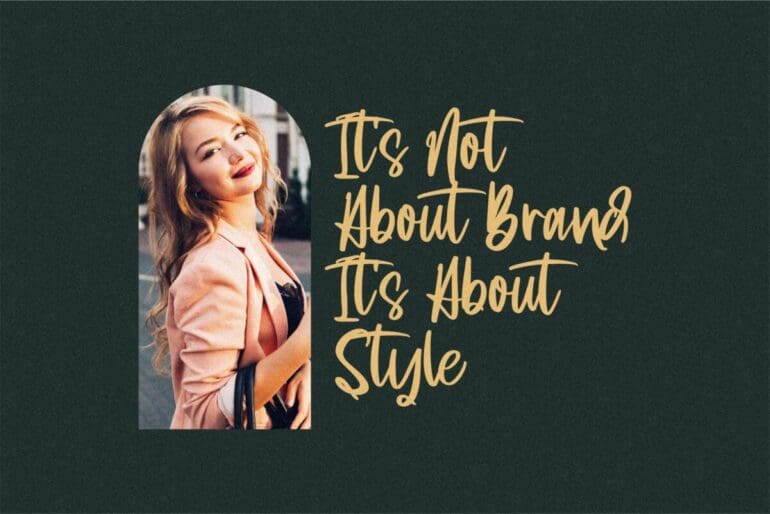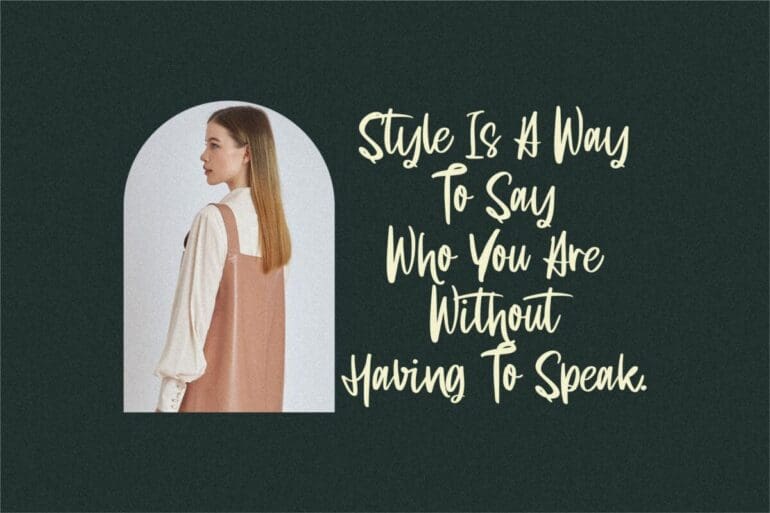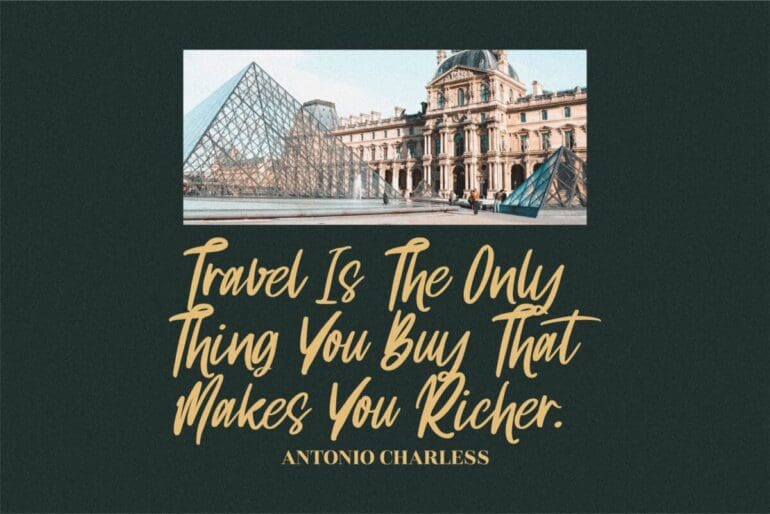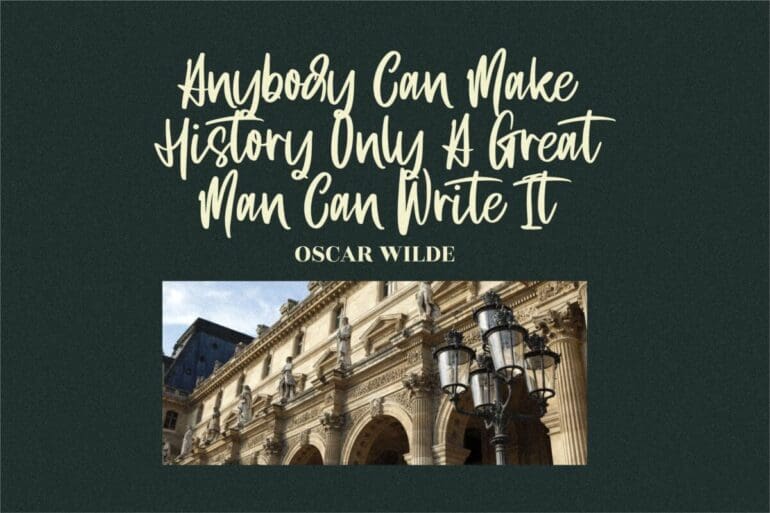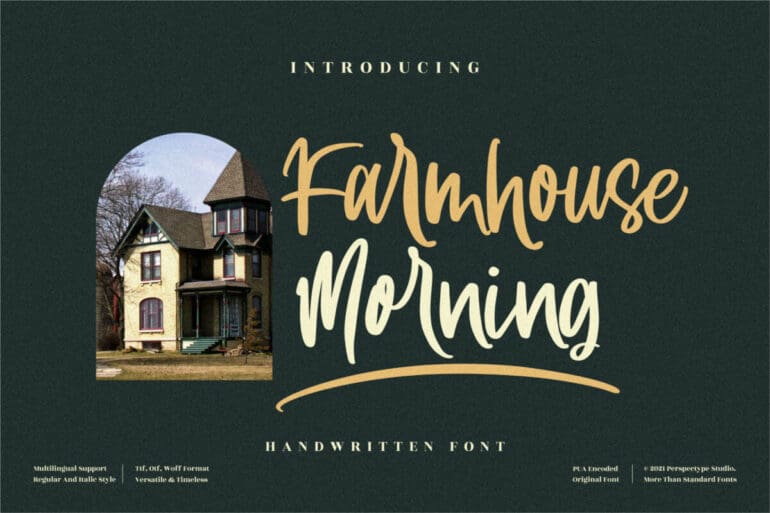
Farmhouse Morning Font
Farmhouse Morning is a relaxed and friendly Handwritten Font. No matter the topic, this font will be an incredible asset to your fonts’ library, as it has the potential to elevate any creation.